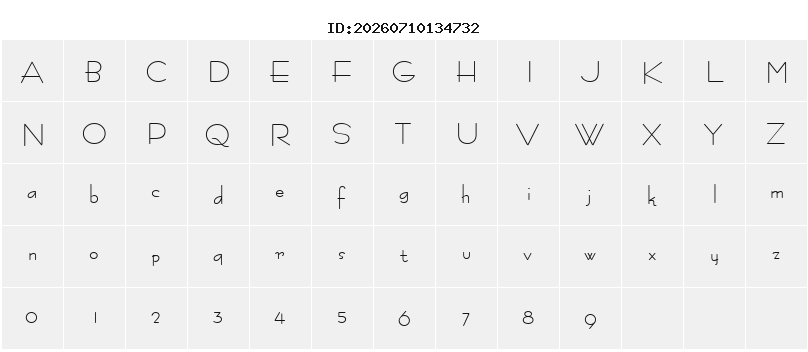
FastracFashion Preview
• Font Name: FastracFashion
• Full Font Name: FastracFashion Regular
• PostScript Name: FastracFashion
About FastracFashion.ttf
FastracFashion.ttf is a modern, elegant sans-serif font designed for ultimate readability and visual harmony. Perfect for branding, headlines, web design, and print materials.